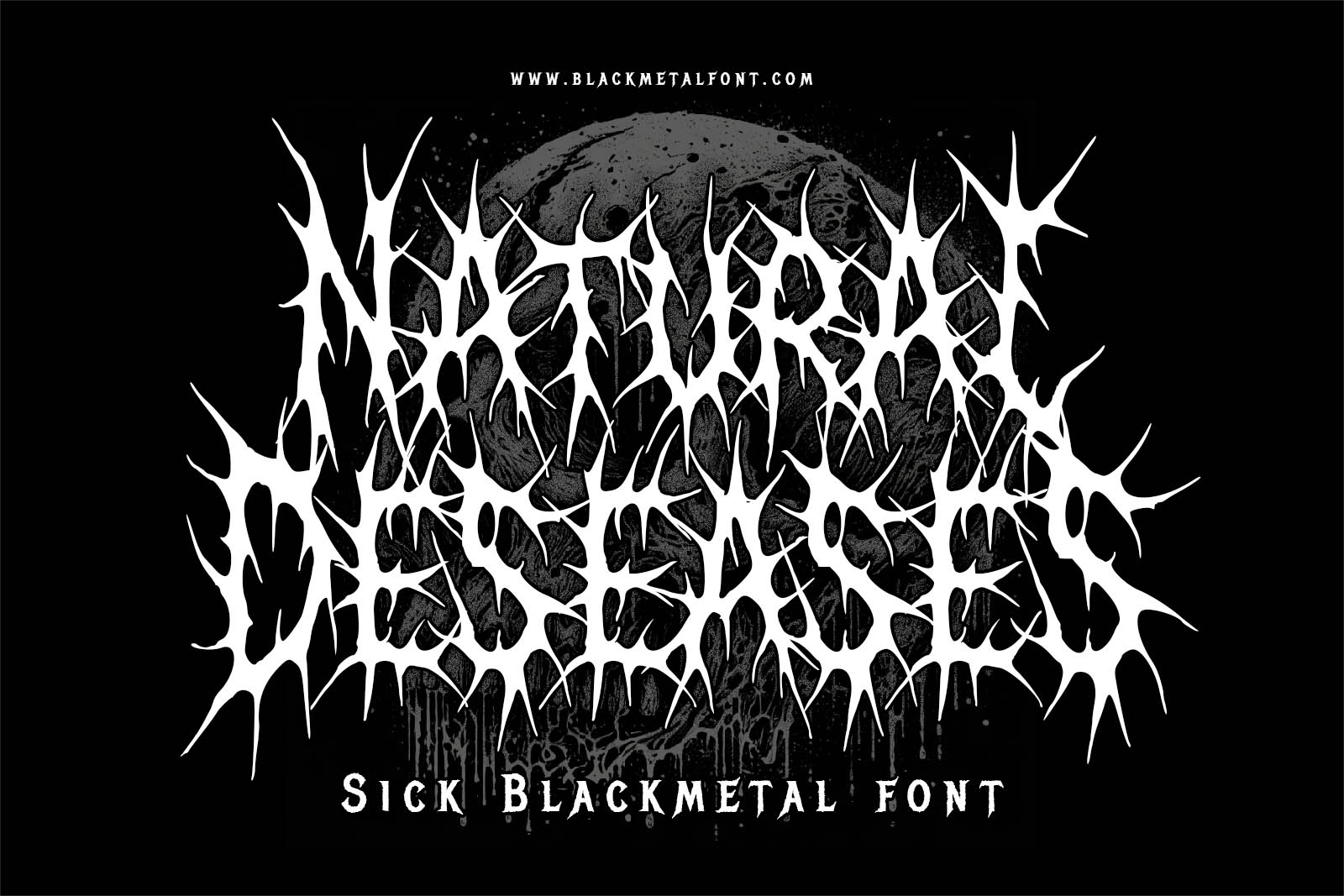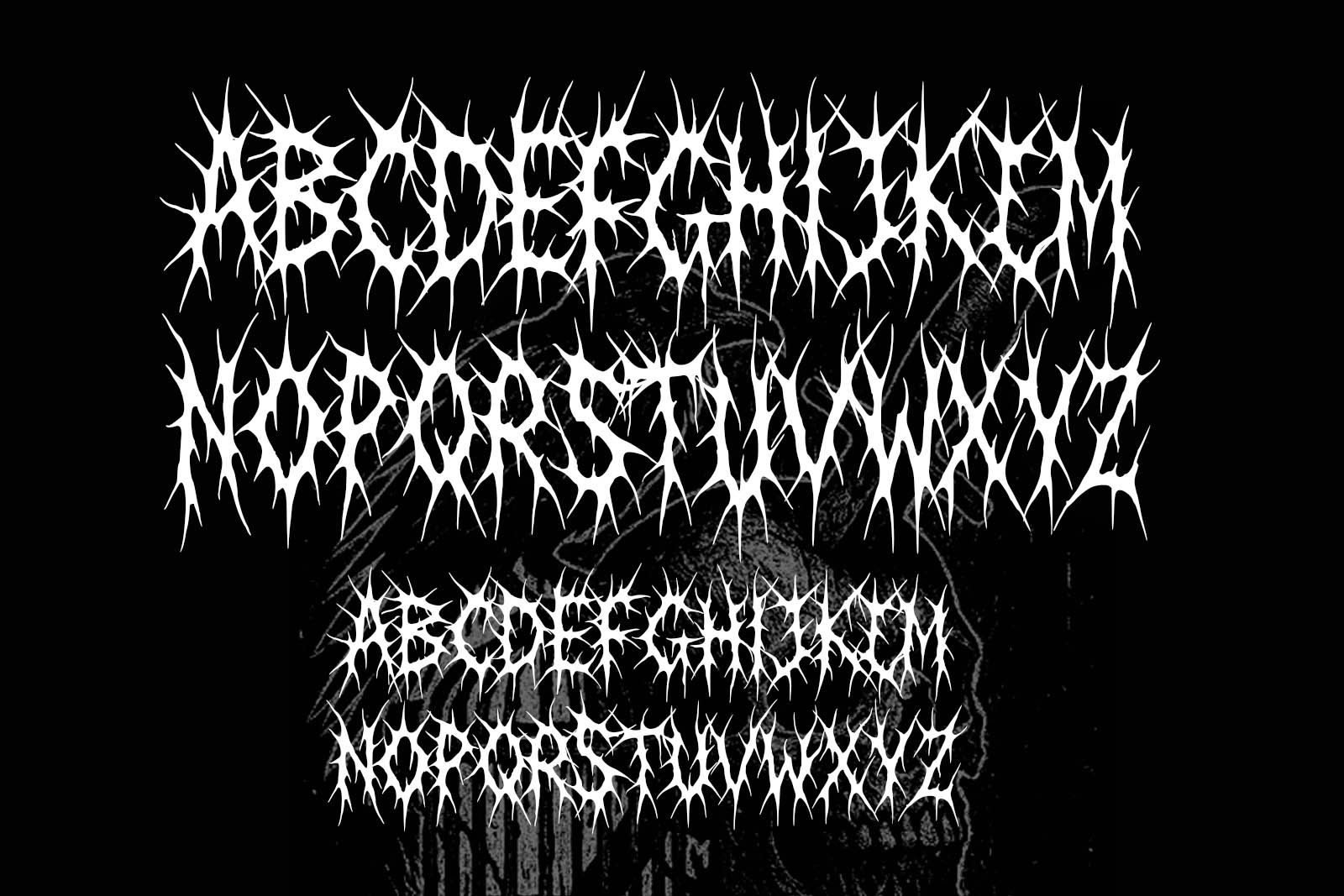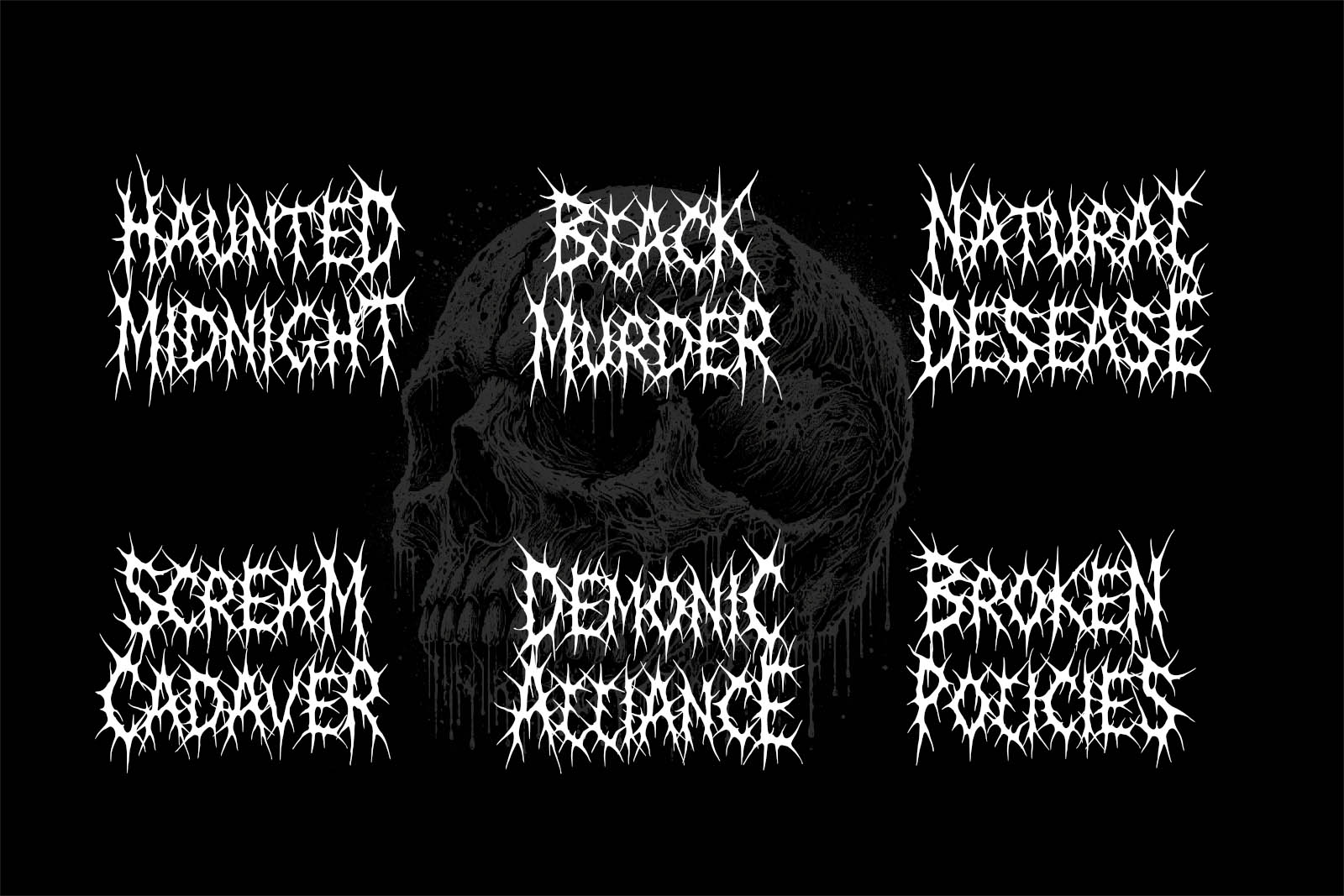
Natural Deseases
Natural DeseaseS is a sick, chaotic, and raw blackmetal font designed for extreme metal bands, underground scenes, and horror-inspired visuals. Featuring razor-sharp spikes, tangled veins, and an almost organic structure, this font captures the essence of brutality and decay. Every letter looks infected—dripping, splattered, and stretched—making it perfect for band logos, album covers, death metal posters, clothing, and any dark-themed merch.
Whether you're creating a doom-laden record title or a corpse-painted gig flyer, Natural DeseaseS brings the plague-like atmosphere your project deserves.